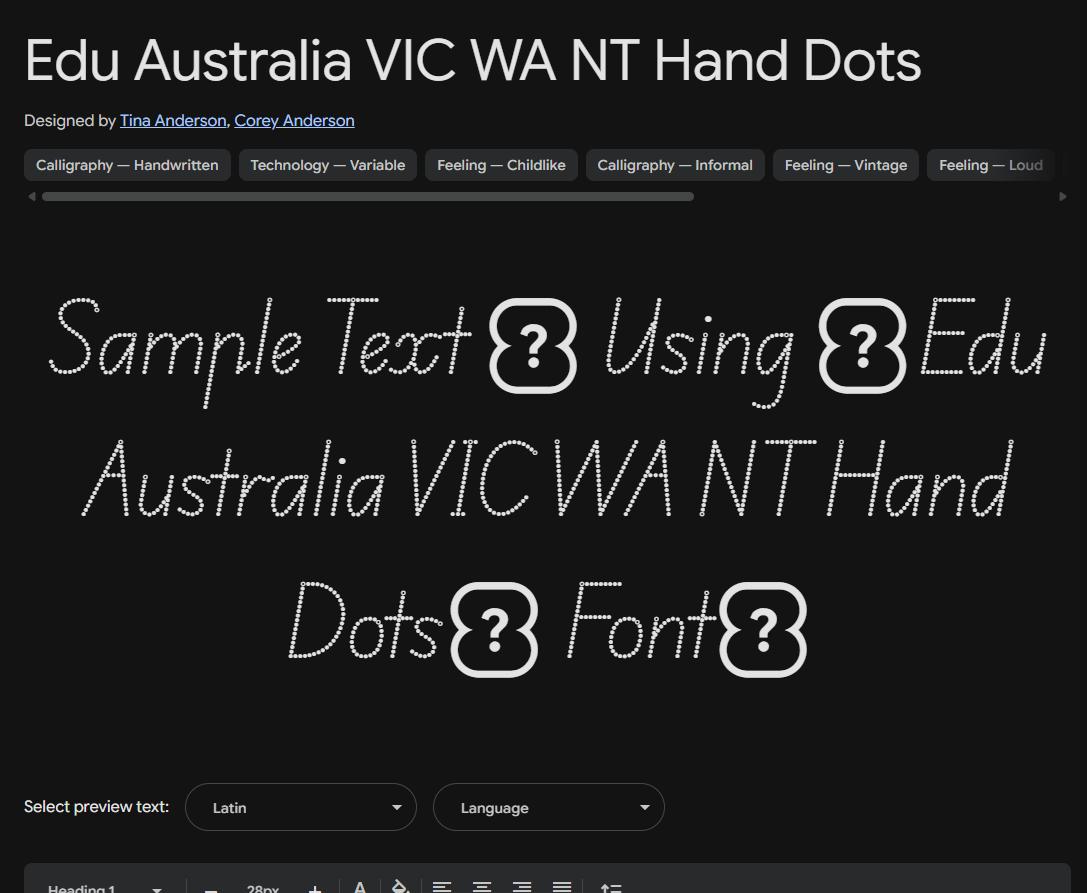
The Edu Australia VIC WA NT Hand Dots typeface, expertly engineered by Tina Anderson and Corey Anderson, represents a sophisticated synthesis of pedagogical standards and modern font technology, specifically tailored to the handwriting curricula of Victoria, Western Australia, and the Northern Territory. This single-axis variable font leverages fluid interpolation to provide a dynamic range of weight and density within its dotted-path architecture, offering a granular typographic scaffold that bridges the gap between static instructional tracing and digital literacy. By integrating region-specific letterform geometry with the performance efficiencies of the Variable Font format, the family optimizes CSS delivery for educational interfaces, ensuring that high-fidelity, accessible handwriting models remain semantically consistent across both print-based tactile learning and responsive screen-based pedagogical environments.
The Edu Australia VIC WA NT Hand Dots font family operates as a sophisticated pedagogical variable typeface, engineered to bridge the gap between regional Australian handwriting standards and modern digital versatility through a dot-matrix skeletal structure. By integrating OpenType technology, this informal calligraphy family offers a rugged yet playful aesthetic that mirrors the active and happy nature of letterform acquisition, moving beyond static outlines to provide a loud, childlike energy essential for early literacy development. Its unique design encapsulates a vintage instructional feel while maintaining the kinetic fluidity of a handwritten style, allowing educators to deploy a semantically rich typographic environment that is as informative as it is visually engaging for developing readers across Victoria, Western Australia, and the Northern Territory.
The Edu Australia VIC WA NT Hand Dots typeface, meticulously engineered by Tina Anderson and Corey Anderson for pedagogical tracing and early childhood literacy scaffolding within specific Australian state-mandated curricula, is fundamentally unsuitable for high-stakes corporate identity, legal documentation, or dense digital user interfaces where maximizing information density and optical legibility is paramount. Because its skeletal glyph construction relies on dotted stroke paths optimized for tactile motor skill development rather than sustained readability, the font lacks the visual weight and solid stroke integrity required for professional authority; even with its 1-axis variability, it cannot overcome the inherent legibility deficits found in its intended "Hand Dots" style when applied to complex hierarchical layouts or accessibility-compliant web environments. Consequently, using this specialized instructional tool for commercial branding or financial reporting would result in significant cognitive load for the reader and a total failure of typographic hierarchy, as the typeface's structural DNA is calibrated exclusively for foundational handwriting acquisition rather than the rigorous demands of modern typographic communication.
For primary school tracing worksheets on A4 paper, a font size between 24pt and 36pt ensures optimal visibility and motor control development. Empirical studies on kinesthetic learning indicate that a 32pt cap-height optimizes the stroke-to-space ratio for developing fine motor precision in early learners.
Utilizing high-contrast backgrounds can improve visibility for students with visual processing needs when using bold or solid font weights. Luminescence contrast ratios exceeding 7:1 maintain AA-level accessibility standards, ensuring that anti-aliasing artifacts do not compromise edge definition at high resolutions.
Aligning characters requires setting the baseline to match the primary writing line while adjusting the x-height to sit perfectly between the meanline and baseline. By manipulating the vertical metrics within OpenType tables, designers can sync the ascent-to-descent ratio with the 18mm standard used in Australian primary school exercise books.
The font remains highly legible for classroom displays when scaled up, provided the stroke thickness is sufficient for long-distance viewing. Geometric integrity is maintained during vector scaling because the Bezier curves are optimized to prevent rasterization blur at dimensions exceeding 300pt.
Optimal line spacing for handwriting practice usually ranges from 1.5 to 2.0 times the font size to allow room for descenders and ascenders. Setting the leading to 120% of the body size prevents collision between the descender of the upper line and the ascender of the lower line, maintaining clear inter-linear whitespace.
This font suite includes specialized glyphs such as the Australian dollar sign and standard arithmetic symbols to support comprehensive curriculum materials. The Unicode mapping incorporates the U+0024 symbol and basic Latin-1 mathematical operators to ensure seamless cross-platform character rendering in educational software.
Layering the dotted version over a faint regular version creates a perfect ghosting effect for guided tracing exercises. Utilizing software that supports Z-order manipulation allows for precise coordinate-matching of the dot-matrix glyphs over the solid vector outlines.
In low-resolution print settings, the dot patterns may appear blurred if the printer's dots-per-inch (DPI) setting is too low. Printing at 600 DPI or higher prevents the halftoning effect from merging individual 0.5mm dot clusters into solid, muddy lines.
The character shapes are specifically designed to adhere to the unique pedagogical standards of Victoria, Western Australia, and the Northern Territory. Modern OpenType Stylistic Sets allow users to toggle regional-specific ligatures and pigtail exits required by different state-mandated handwriting curricula.